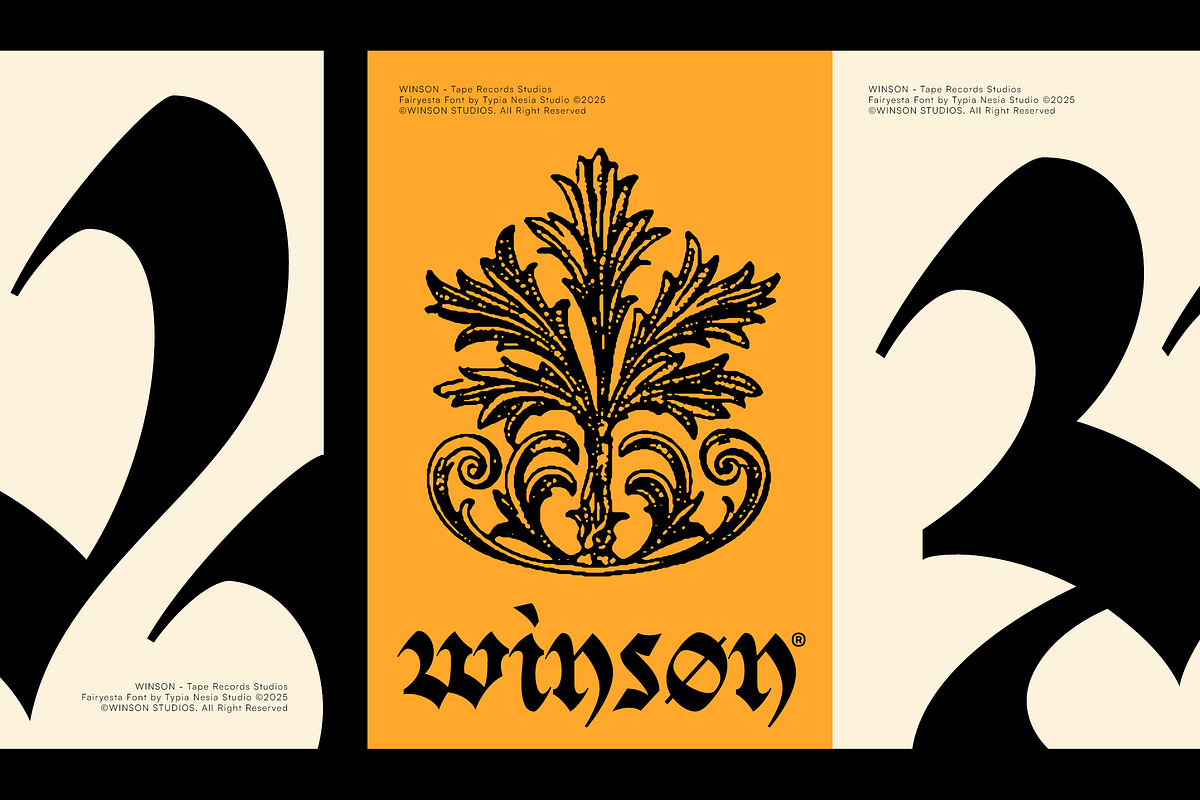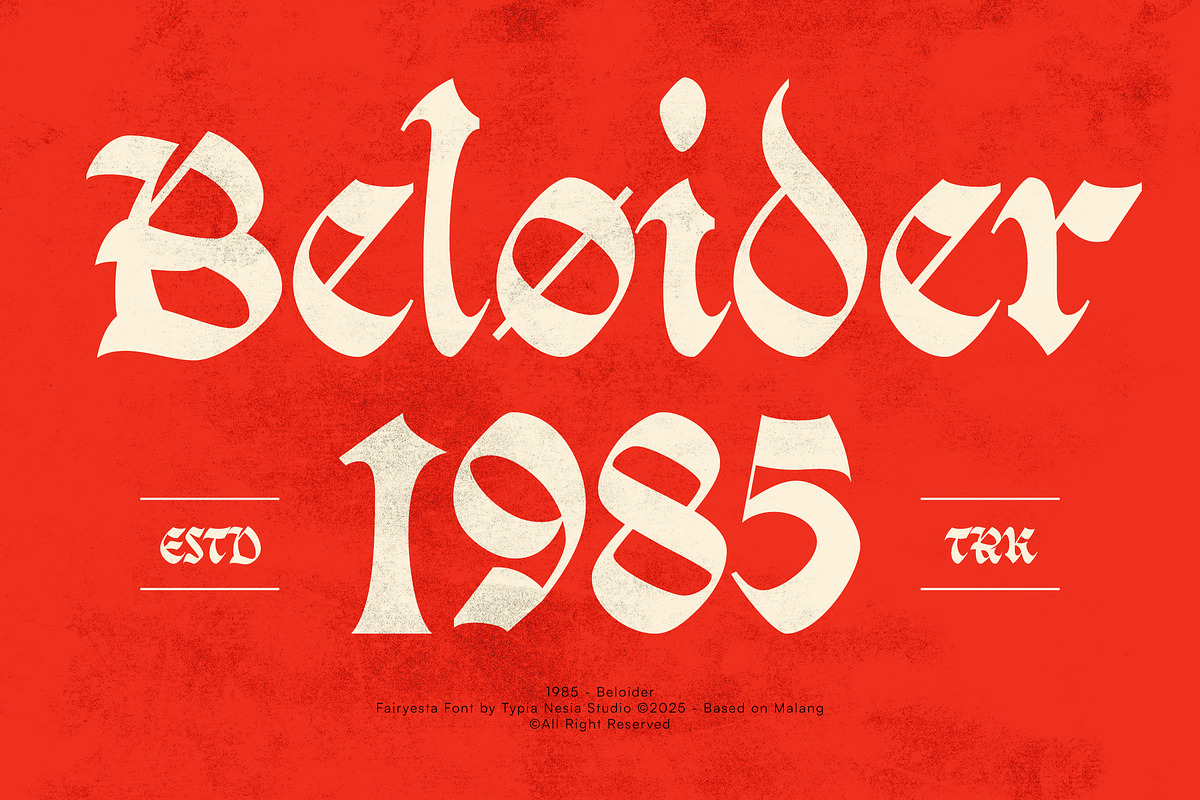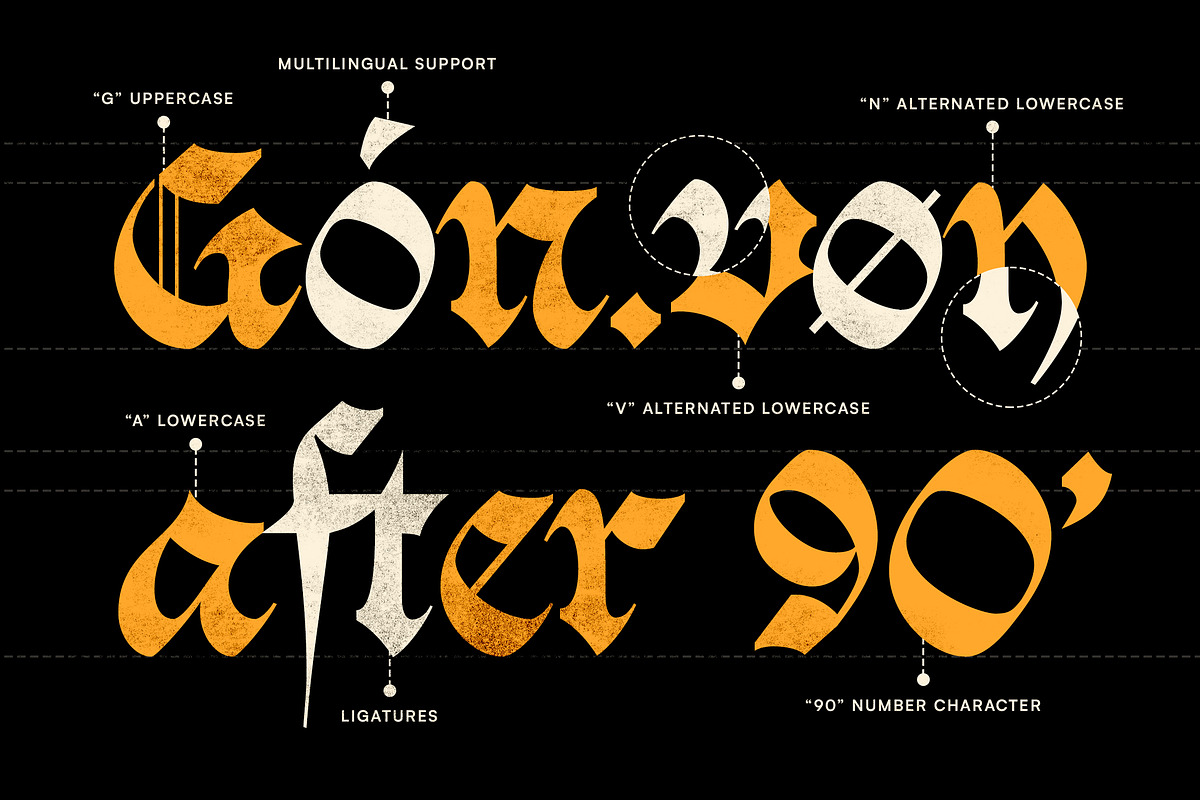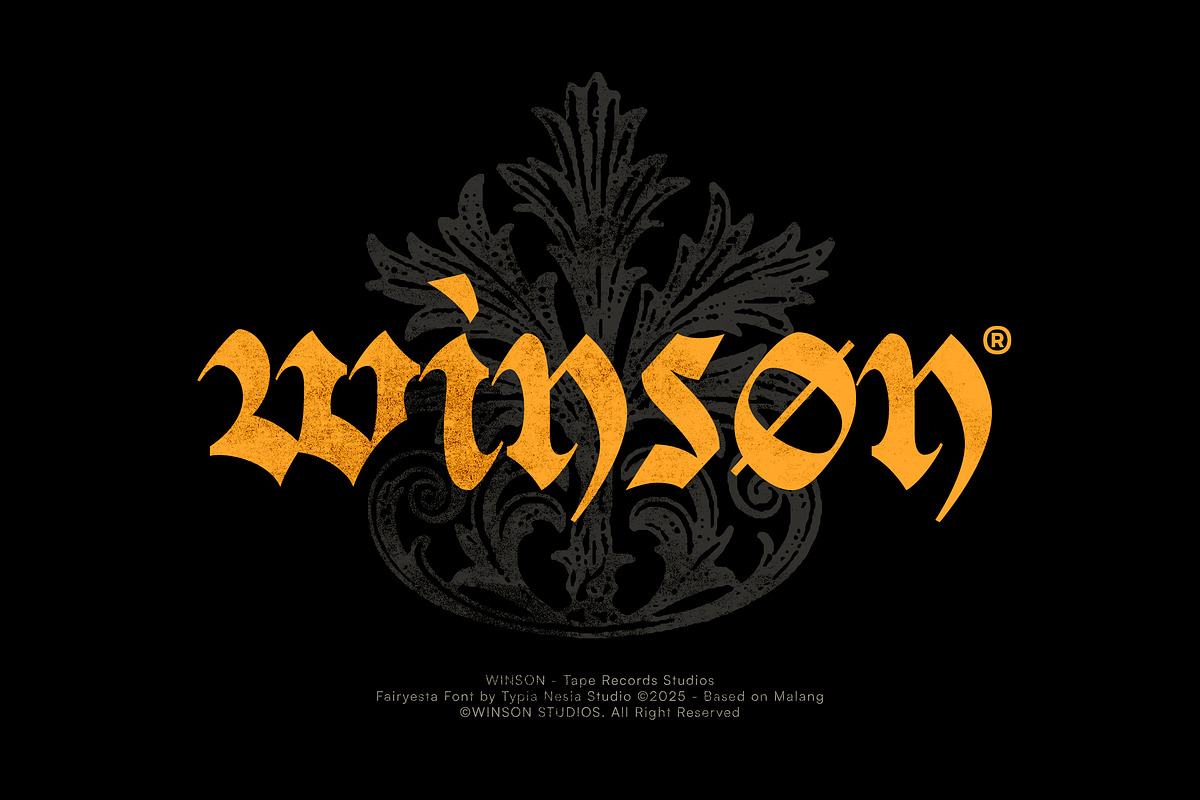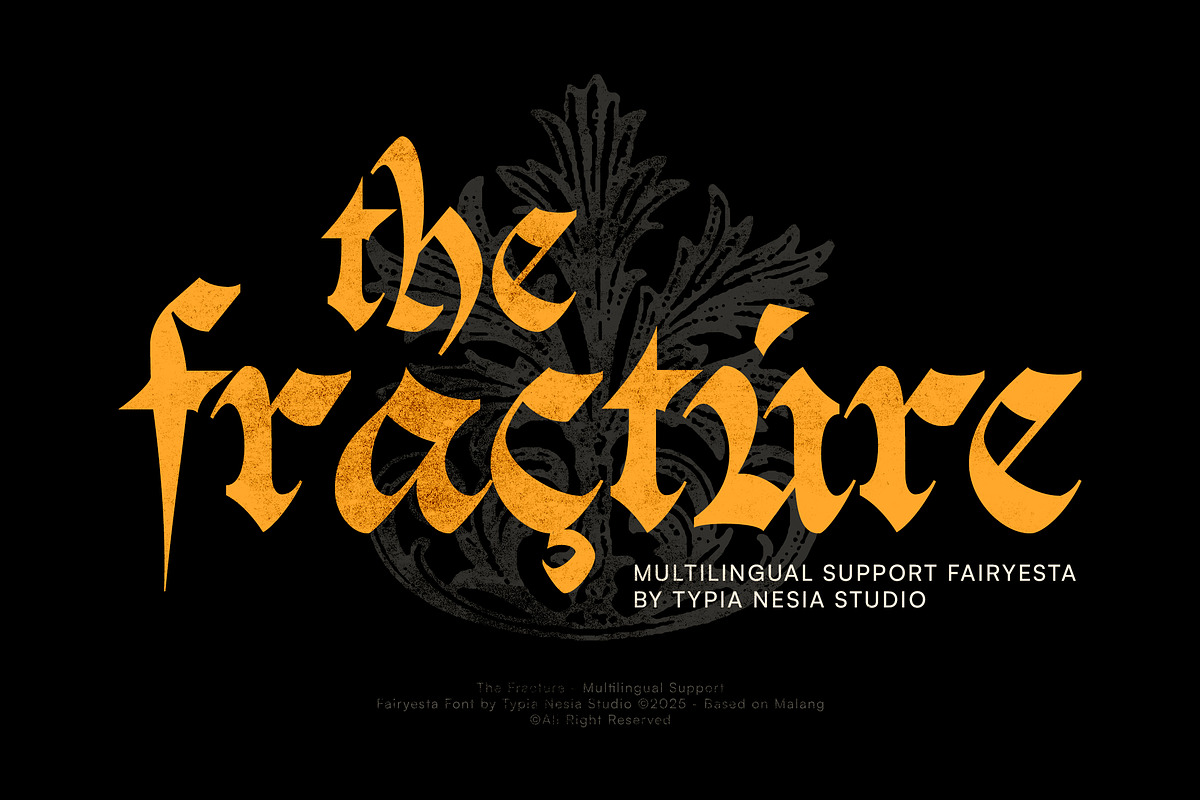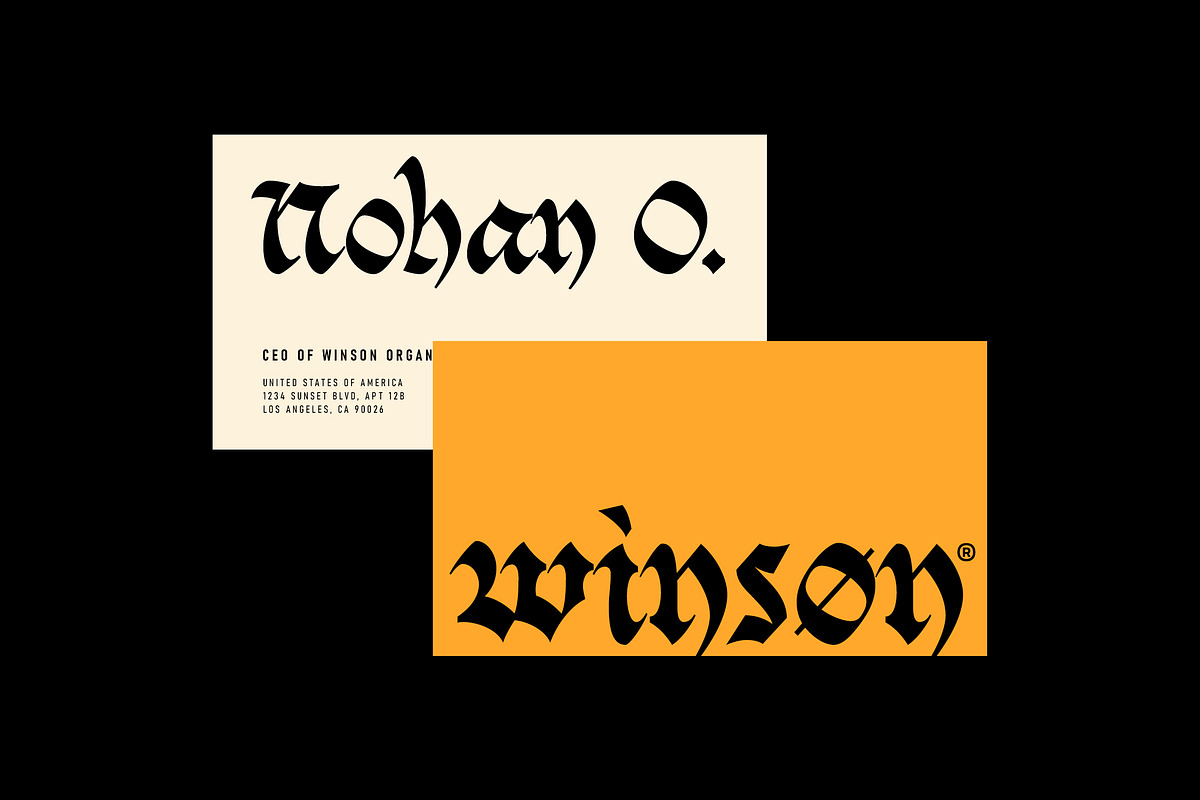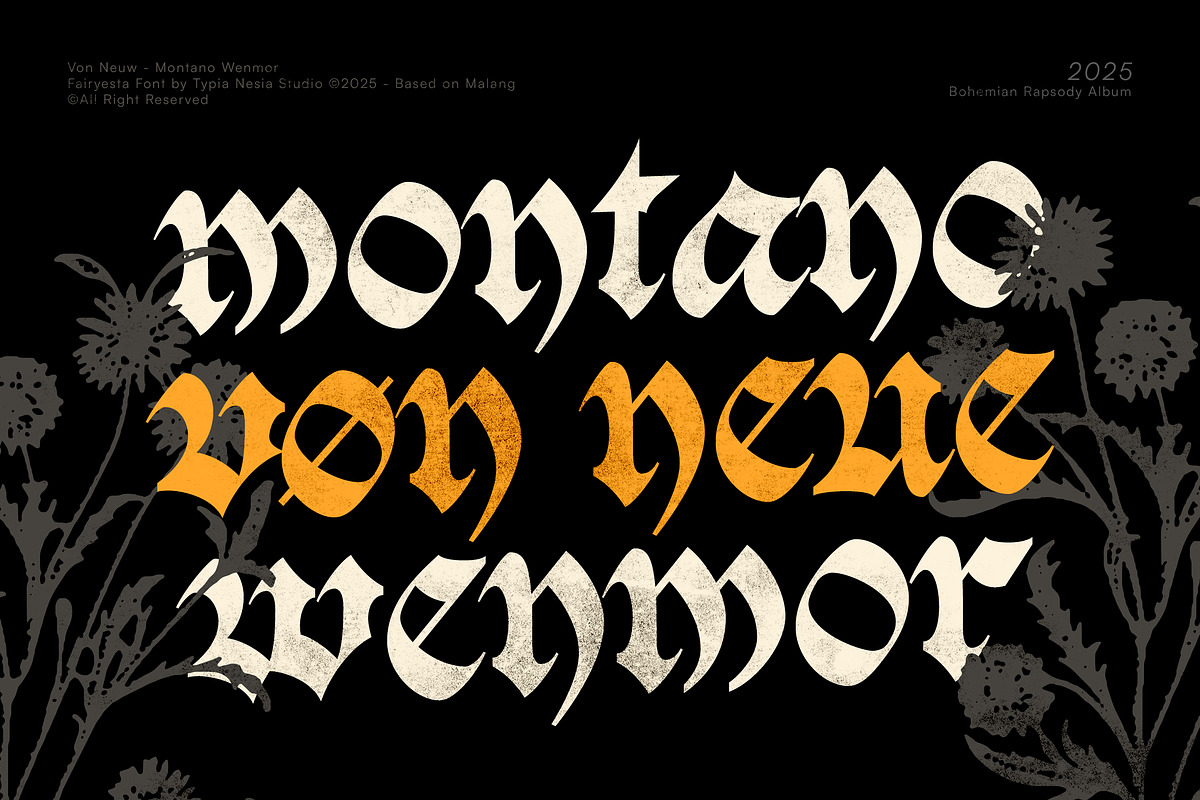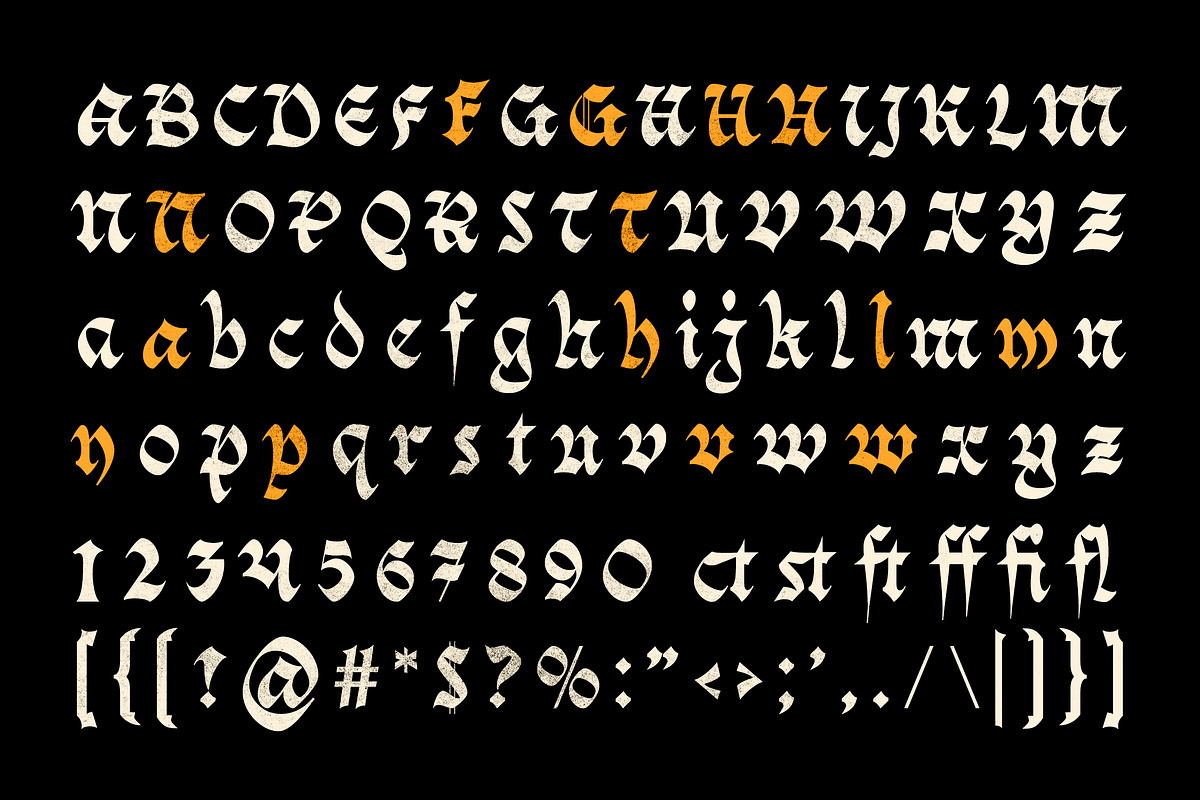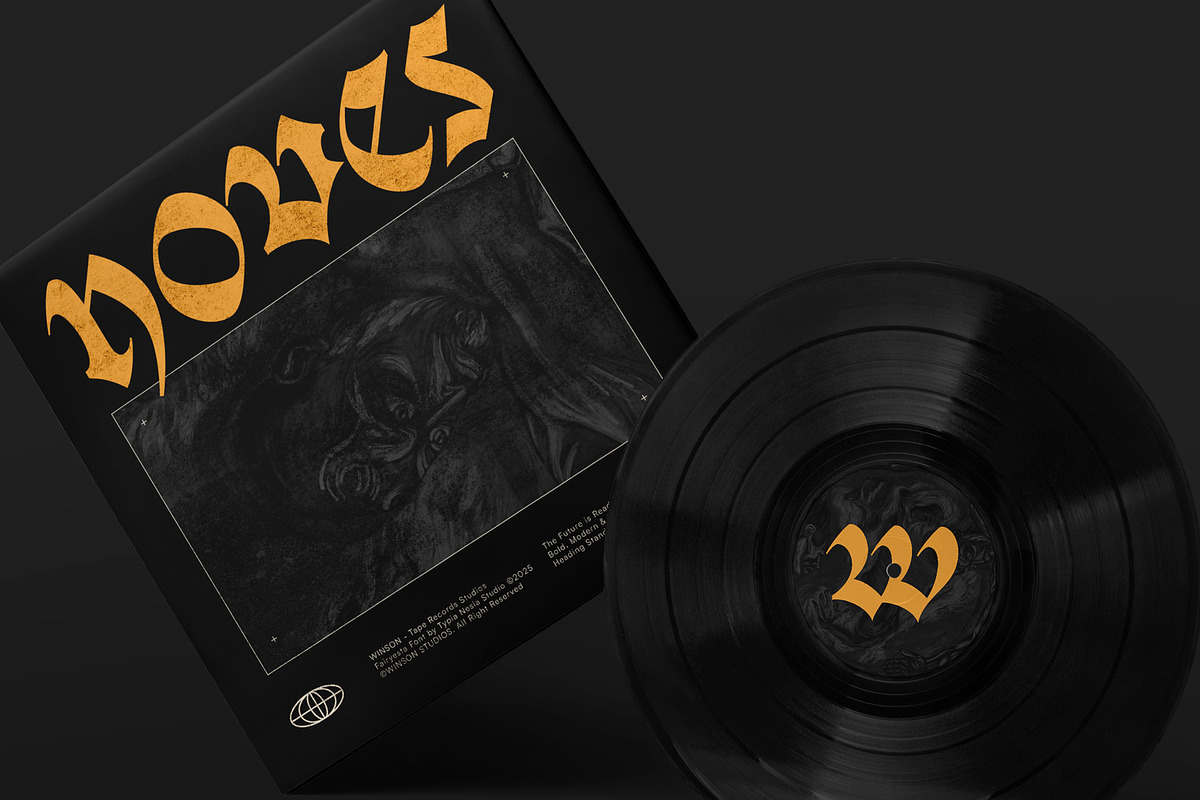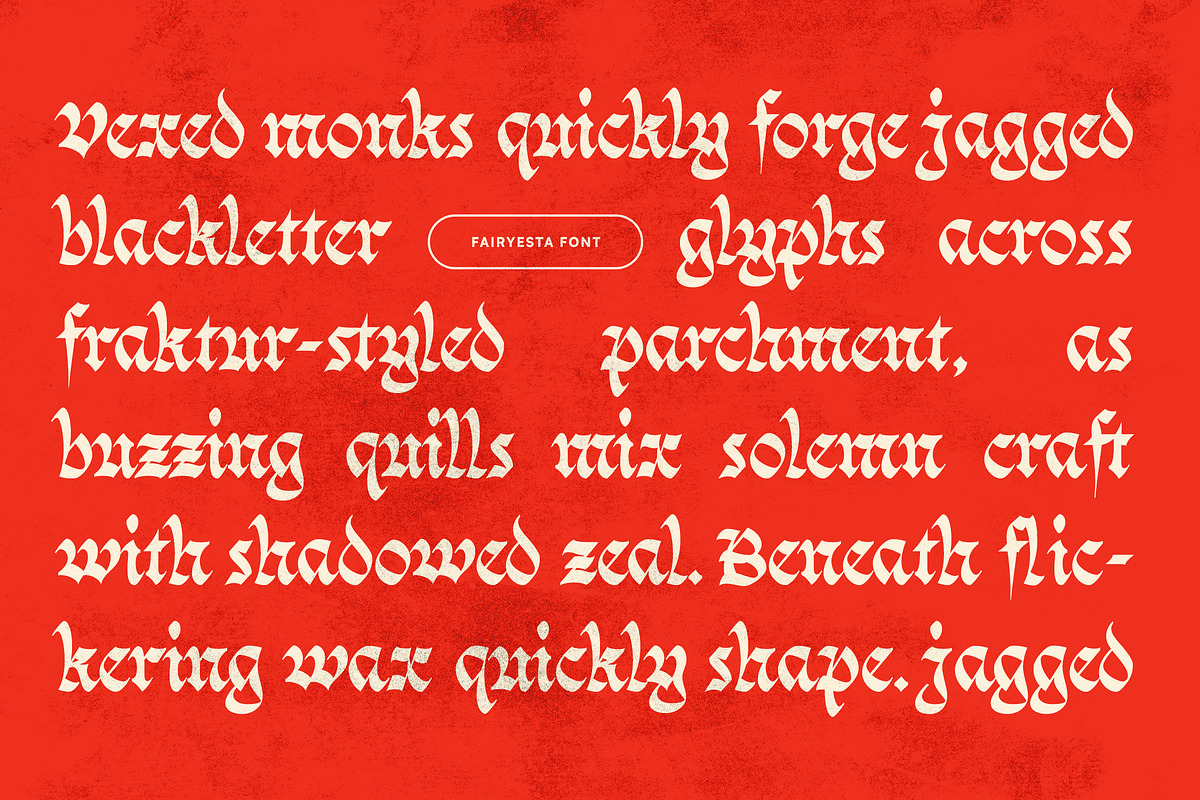
Fairyesta - Blackletter Gothic Font
Fairyesta - Medieval Gothic Blackletter Display Font - Fantasy Logo Display Font
Fairyesta is a medieval Gothic blackletter display font inspired by classic Gothic and Old English typographic traditions. Featuring sharp, dramatic strokes and authentic medieval letterforms, Fairyesta delivers an intense and mysterious atmosphere perfect for fantasy, horror, and dark-themed visuals. This font is ideal for logos, movie titles, game design, music and metal branding, posters, and striking branding projects that require a bold medieval character. With its strong historical roots and dramatic presence, Fairyesta brings an authentic old-world and cinematic feel to modern creative works.